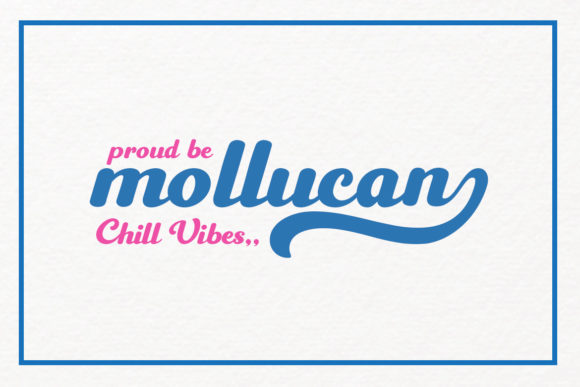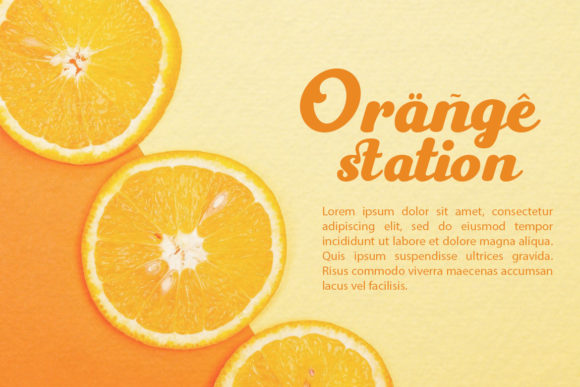
Neira Font
db-ku.com - Script & Handwritten -- Neira is a retro styled and graceful script font. Fall for its ravishing style and use it to create gorgeous designs. Fall for its ravishing style and use it to create gorgeous wedding invitations, beautiful stationary art, eye-catching social media posts, and much more!